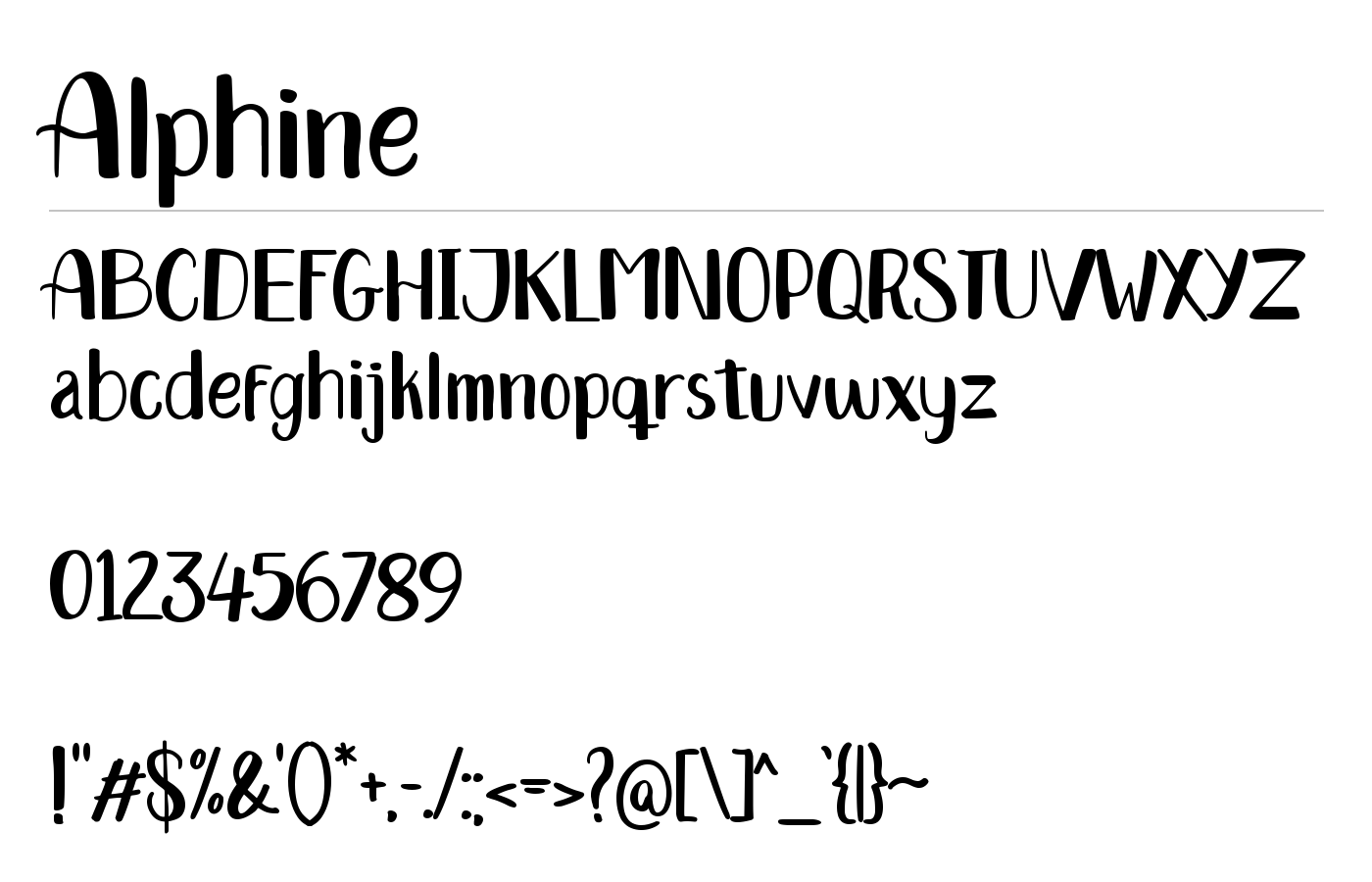
Alphine is a playful and casual sans serif font with a hand-drawn feel, characterized by its slightly uneven strokes and quirky letterforms. Its medium weight and moderately tall x-height make it friendly and easy to read, ideal for creative and informal designs. This font works great for logos, children’s books, and social media graphics where a fun, approachable vibe is desired.
Alphine Font
About Alphine Font
| Font family | Alphine Font |
| Designer | Masa Aska Sanurumi |